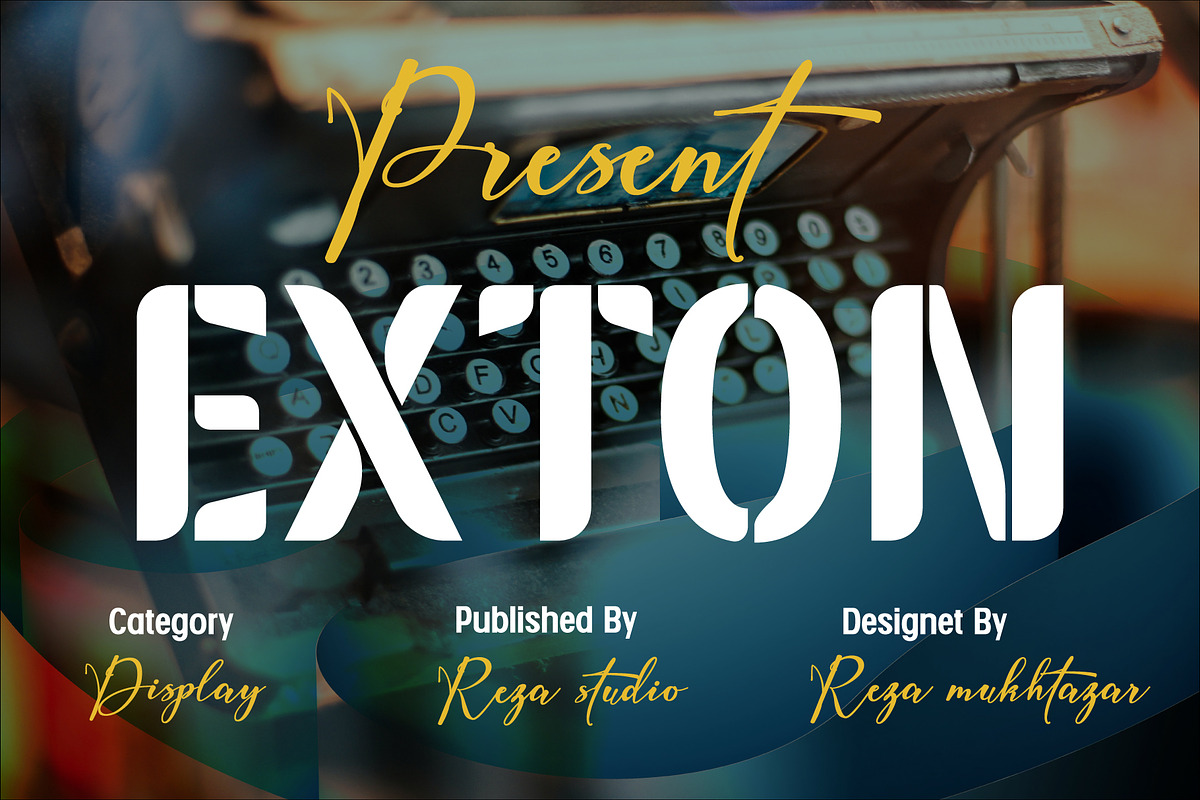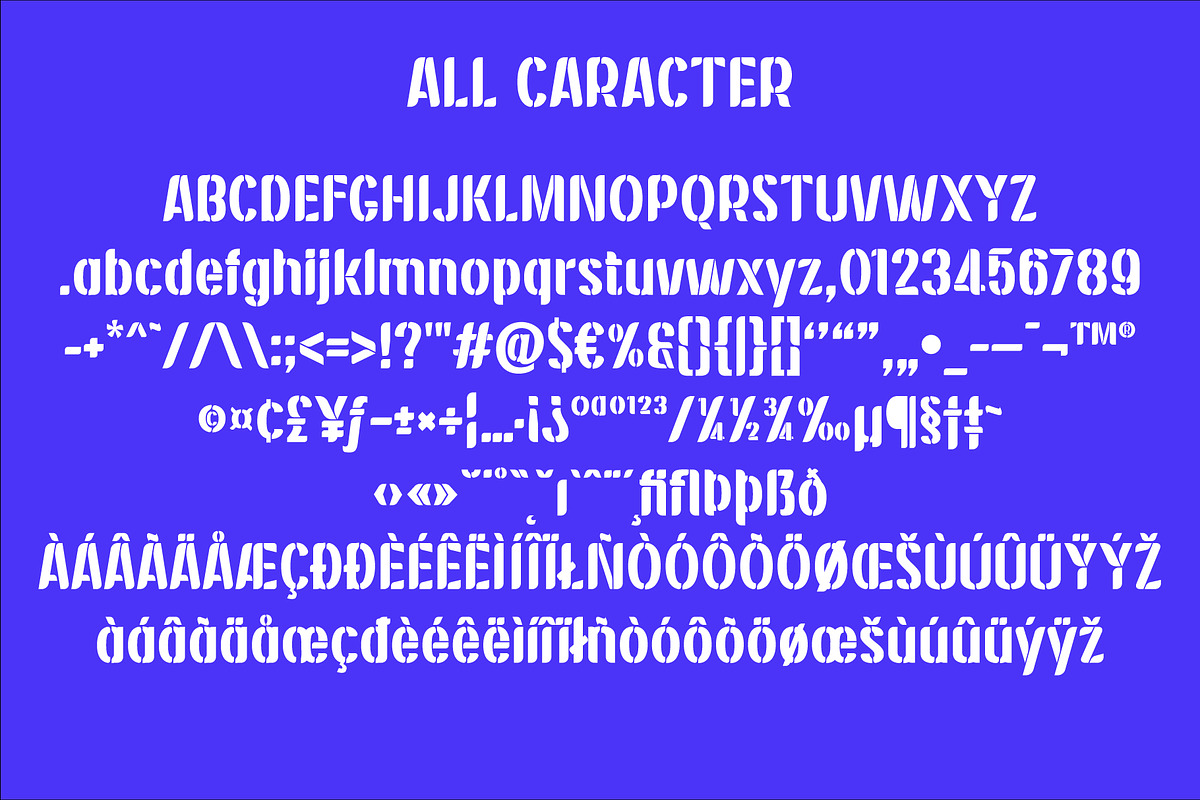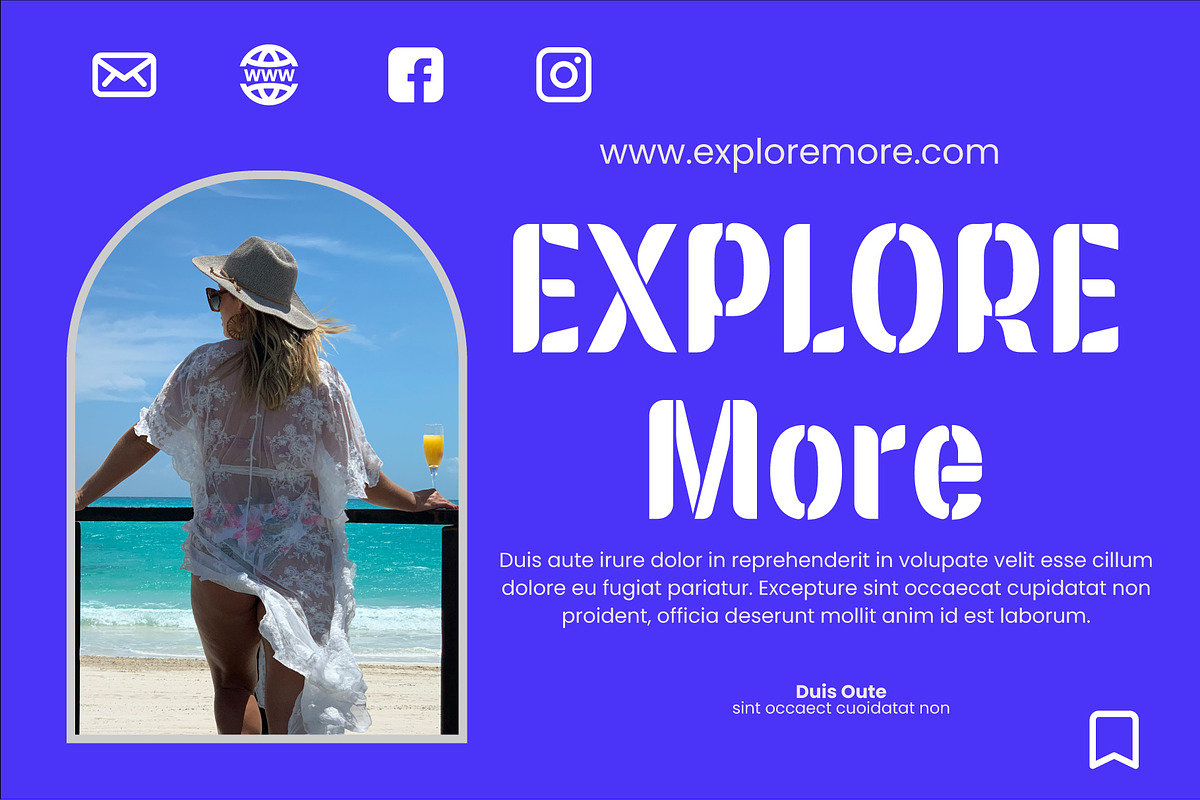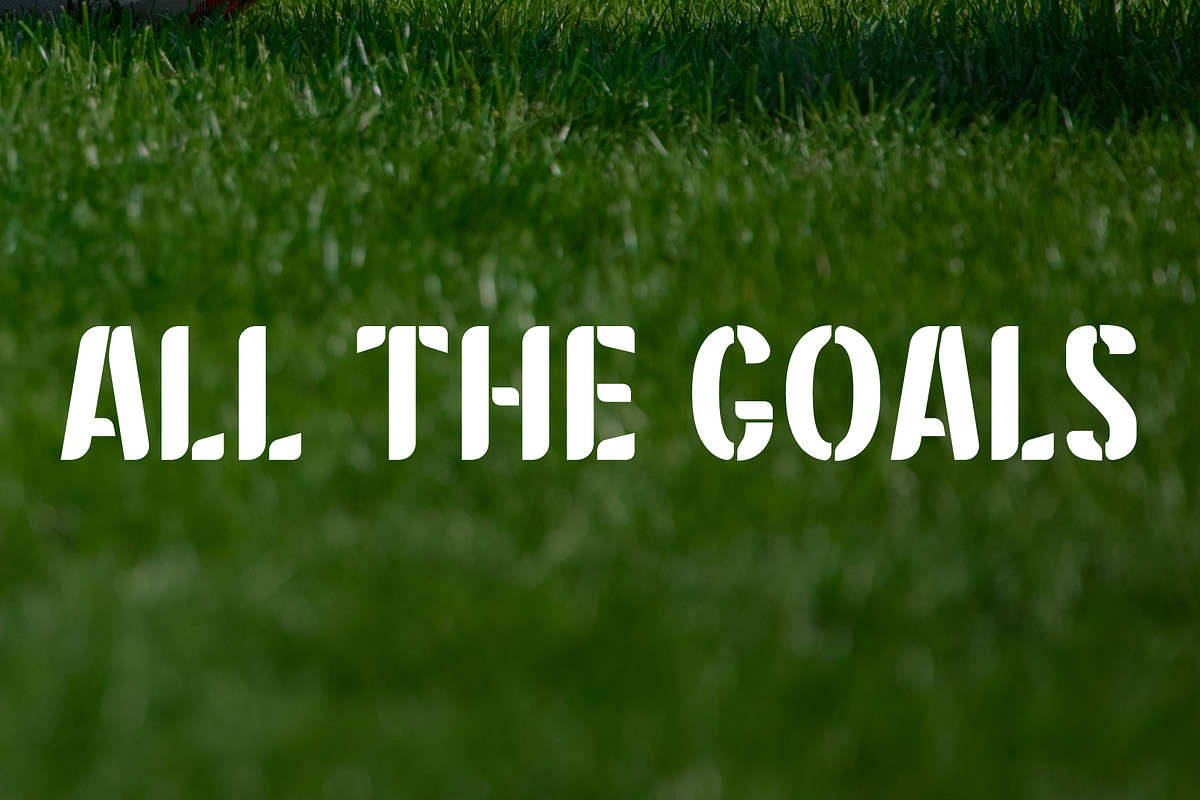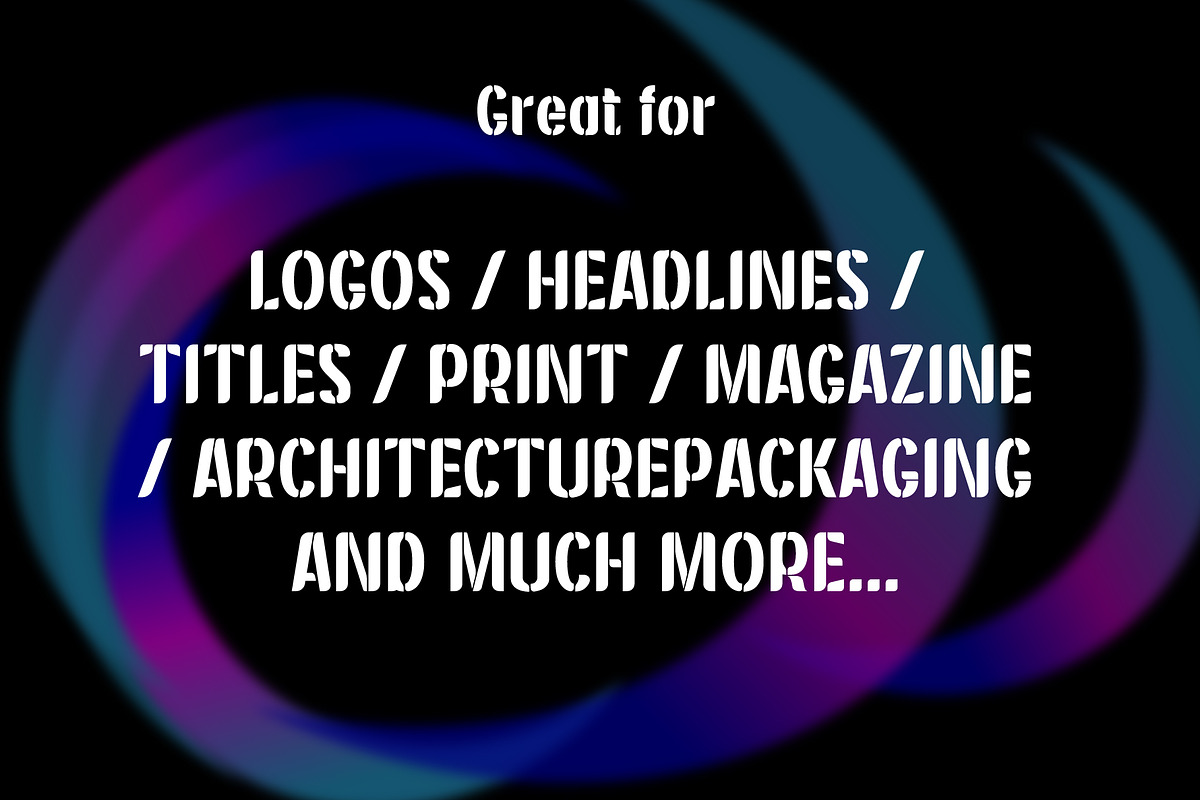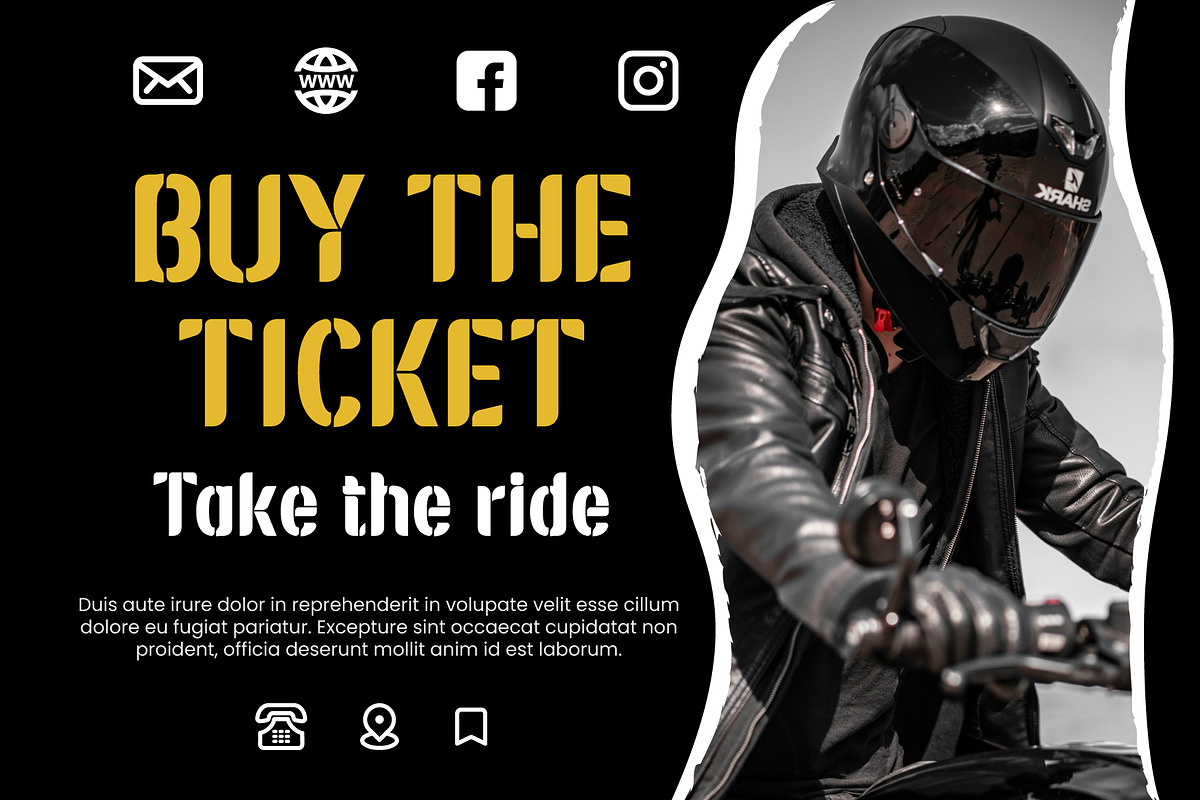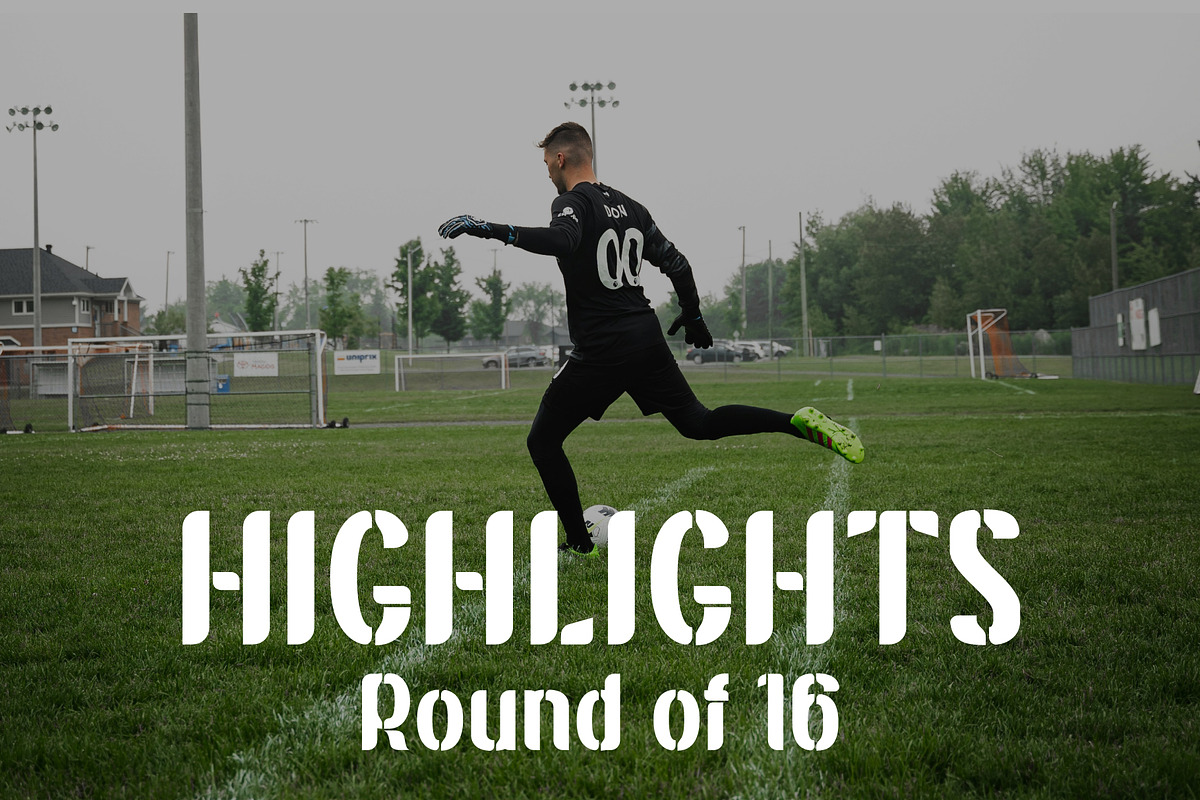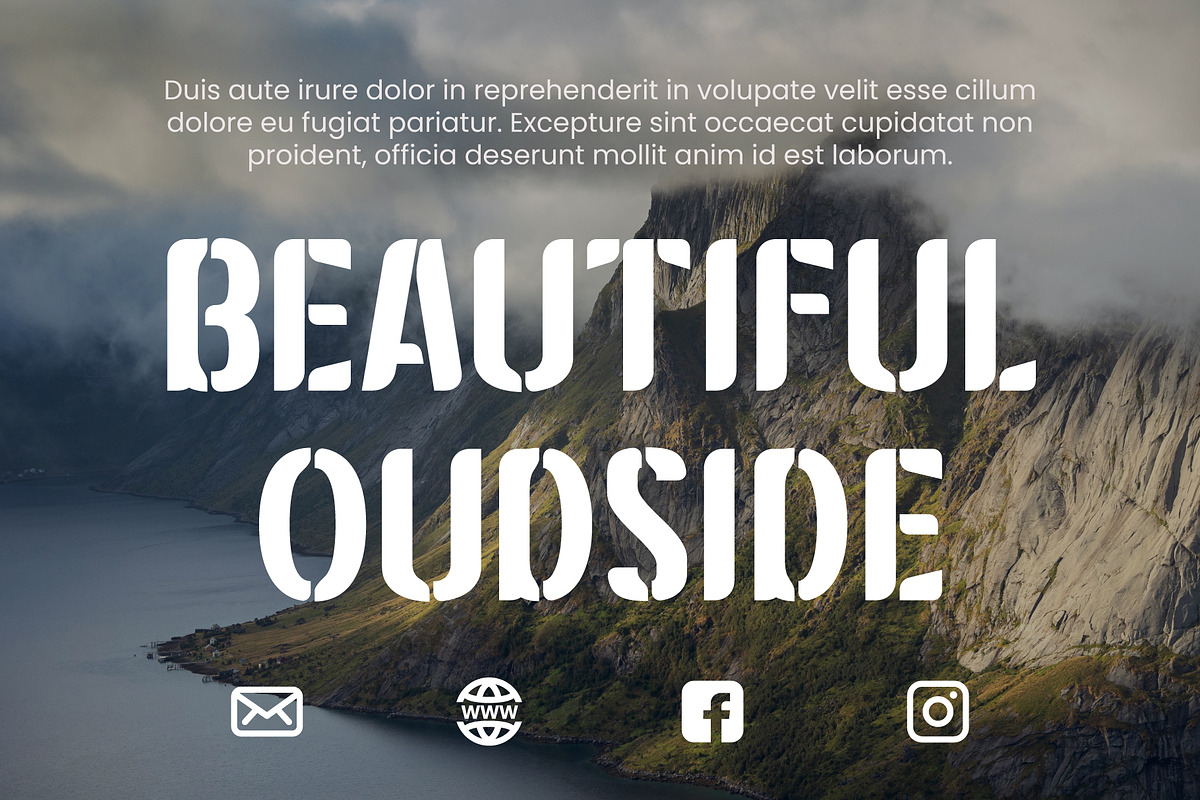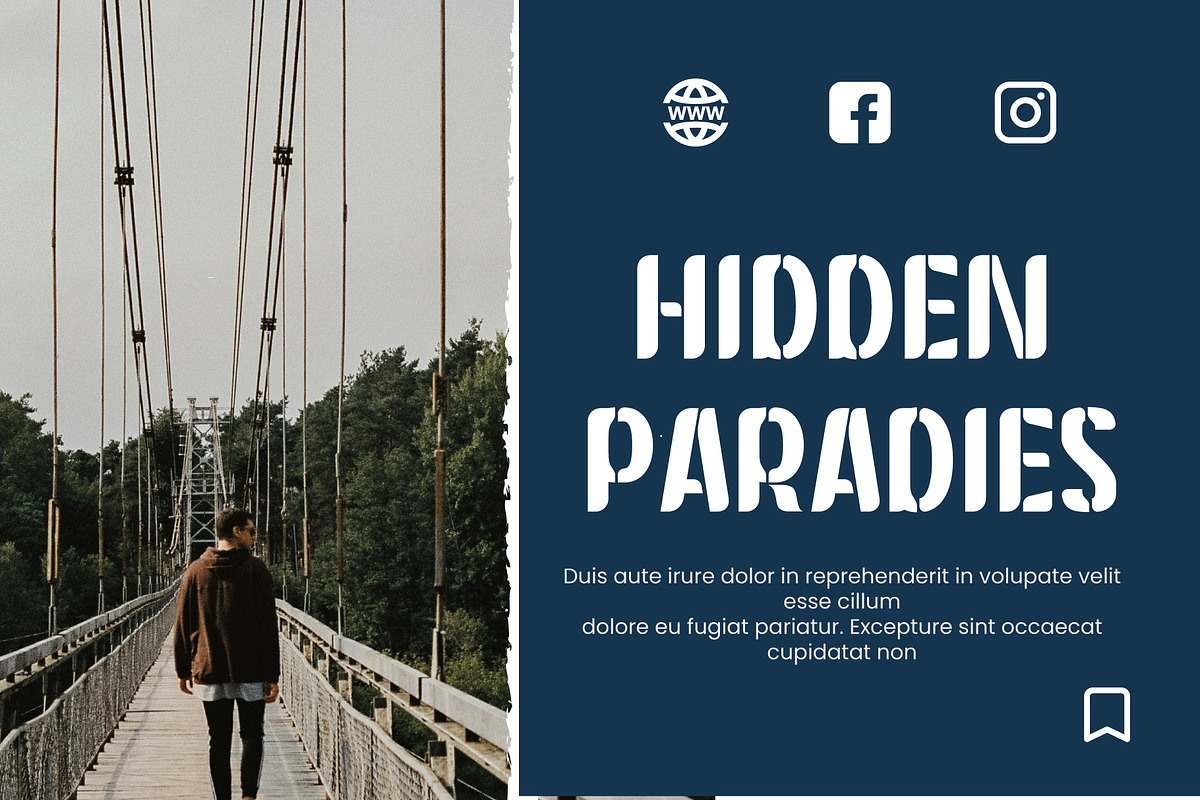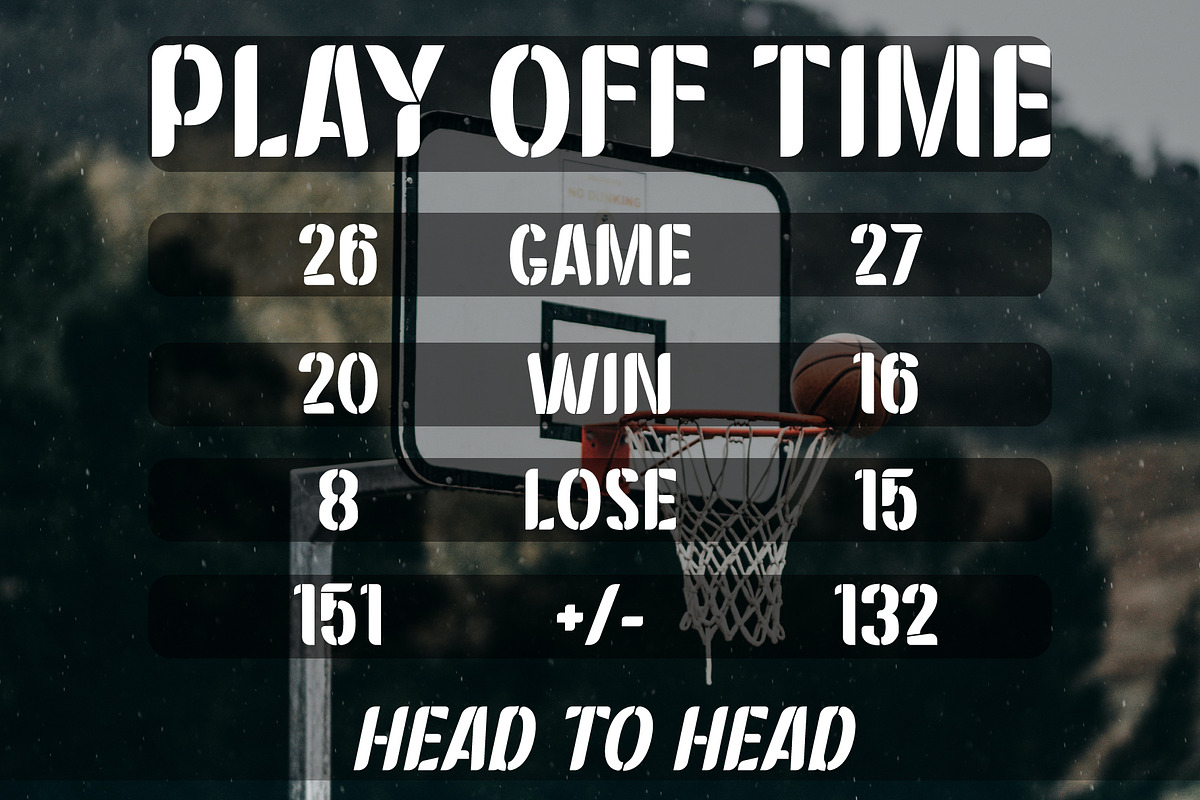
Exton
Introducing EXTON, a striking display font crafted to make your designs stand out. Inspired by modern geometry and clean cuts, EXTON delivers a powerful visual presence with its bold letterforms and unique sliced details. Perfect for projects that demand attention and a contemporary edge.
- All caps characters
- Bold weight for strong impact
- Unique geometric cuts for a modern look
- Great legibility at both large and medium sizes
- Ideal for headlines, logos, posters, branding, packaging, and editorial design
EXTON is the perfect choice for designers who want to create bold statements and modern aesthetics. Elevate your creative projects and make your typography shine with EXTON!